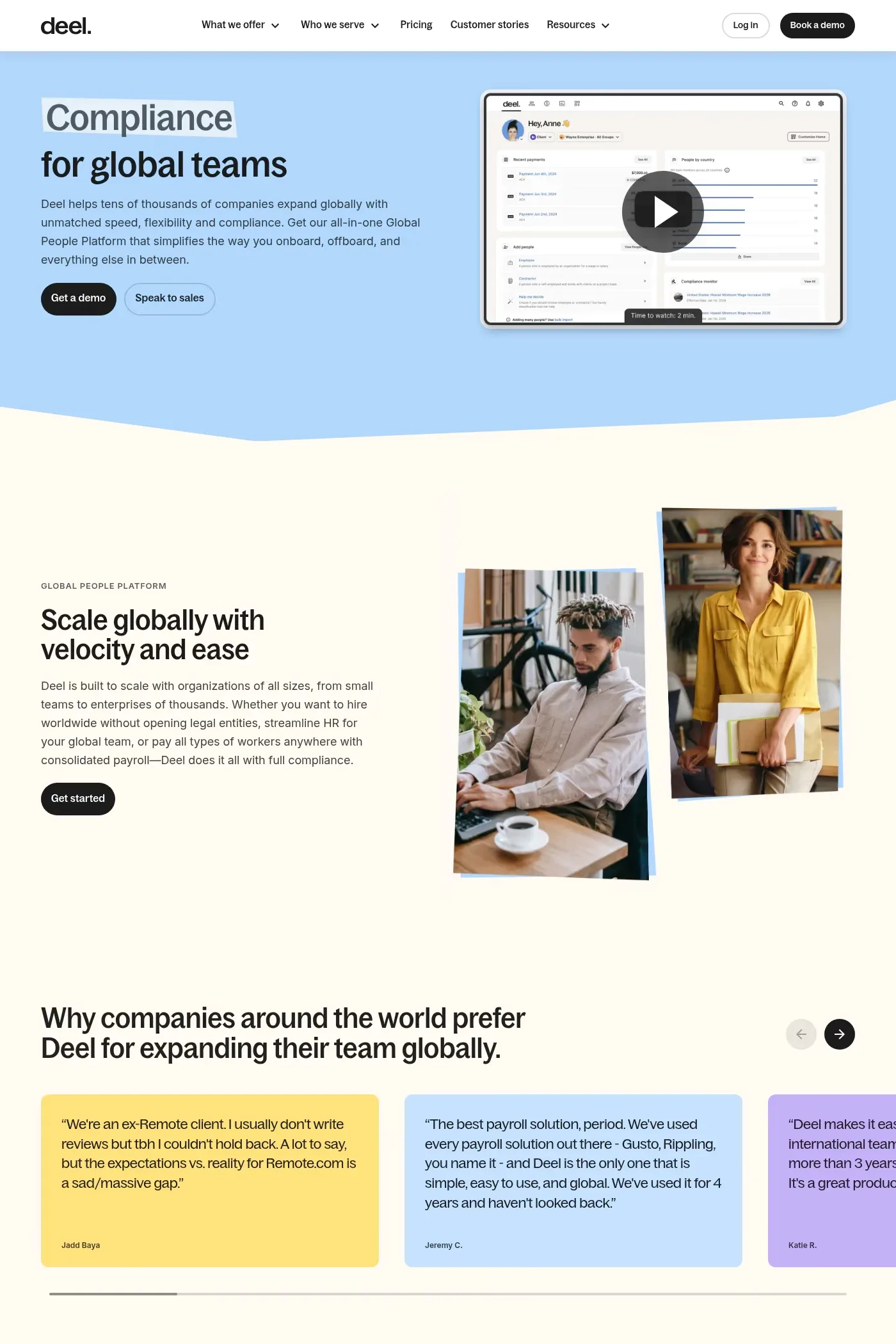
Bagoss is a sans-serif typeface from Displaay Type Foundry.
The original sketch of the Bagoss typeface featured a crude condensed sans-serif construction with a large x-height and diagonal terminals. However as the typeface aged, it found its distinctiveness by increasing the contrast of the strokes and developing other details such as a tiny single-edge serif. During the maturation phase, the family grew into three subfamilies ranging from condensed to expanded widths. The typeface can reveal its cursive forms by turning on OpenType features. It’s the perfect typeface for any occasion where a little character is needed.